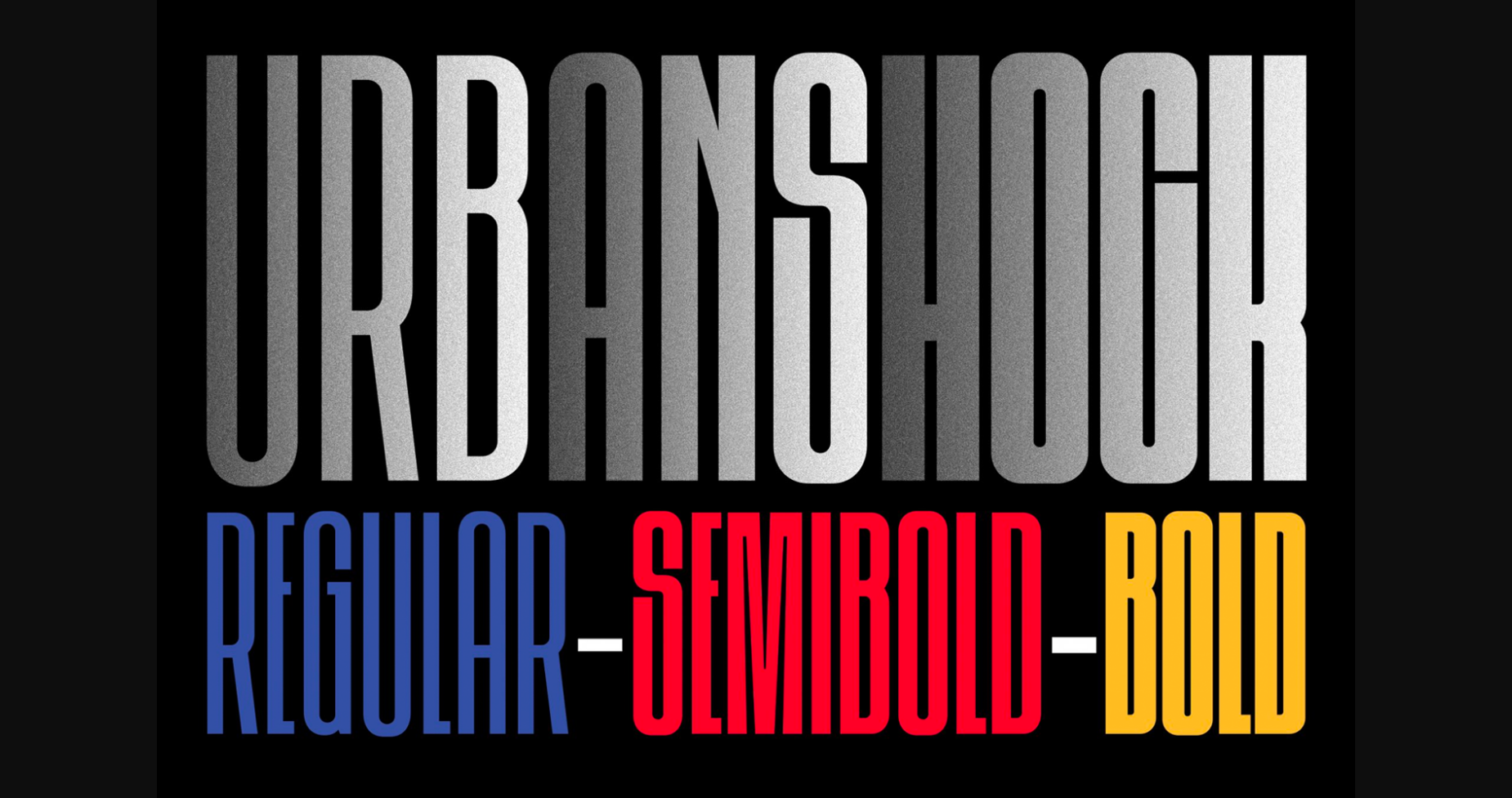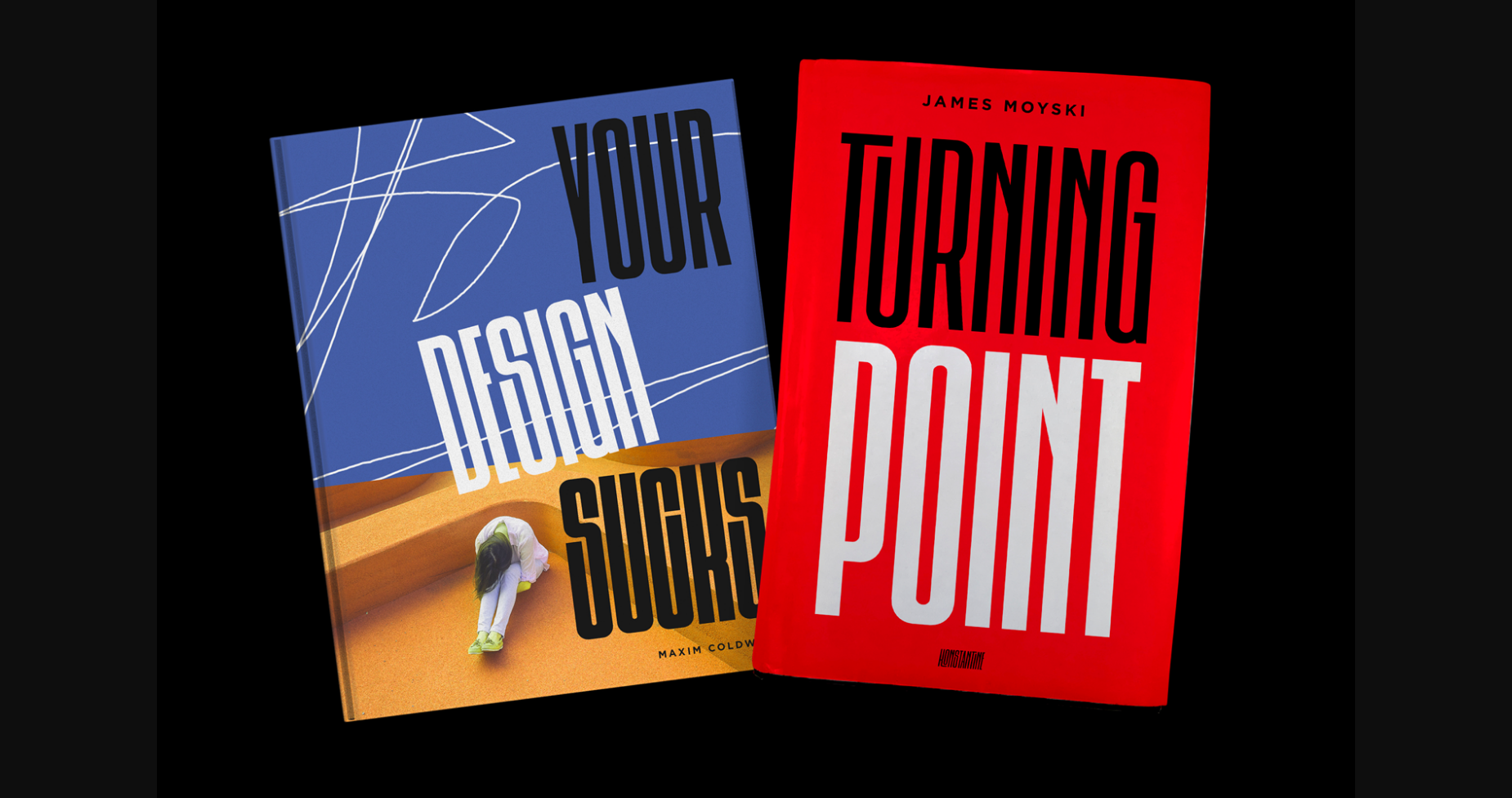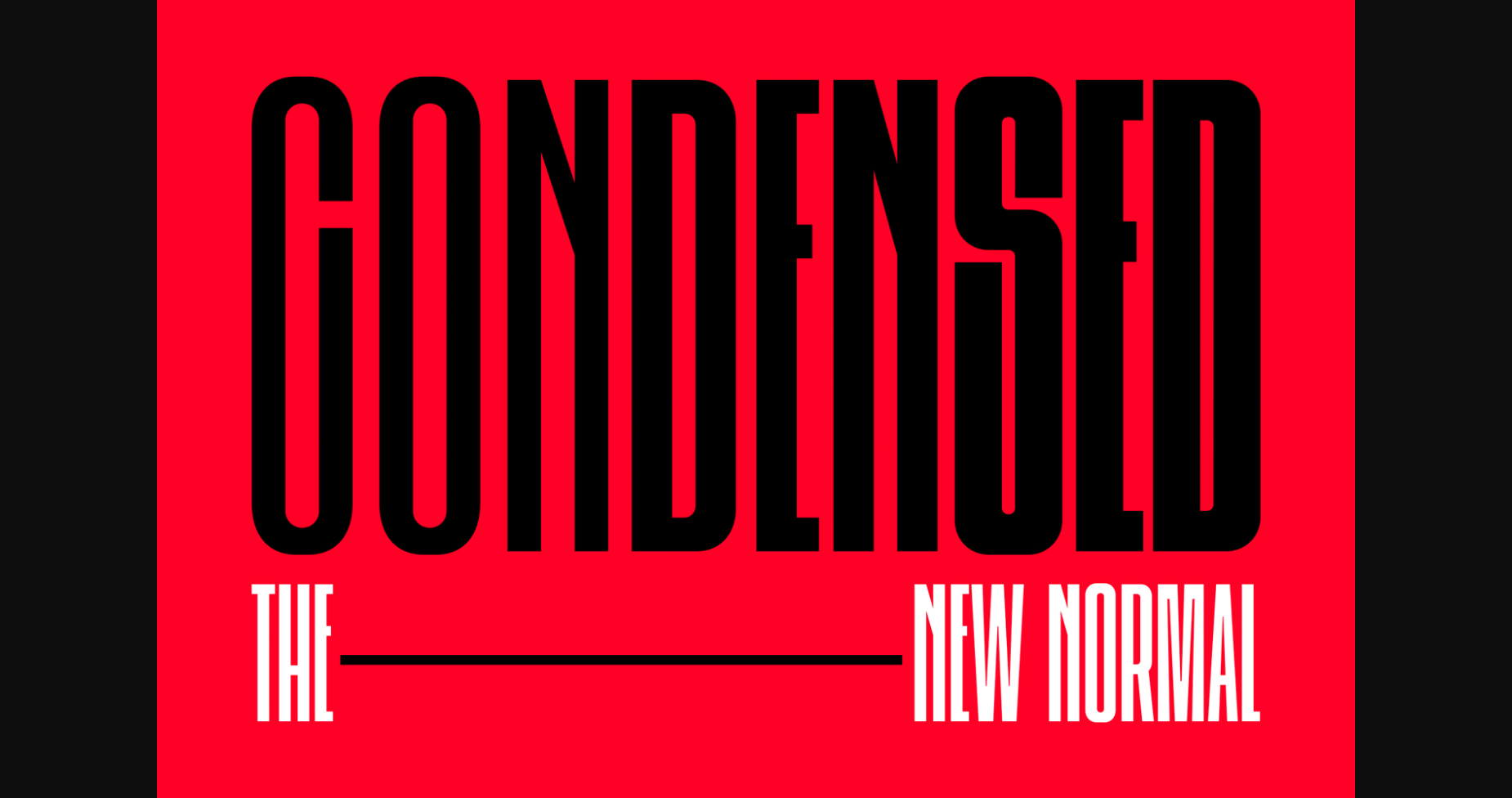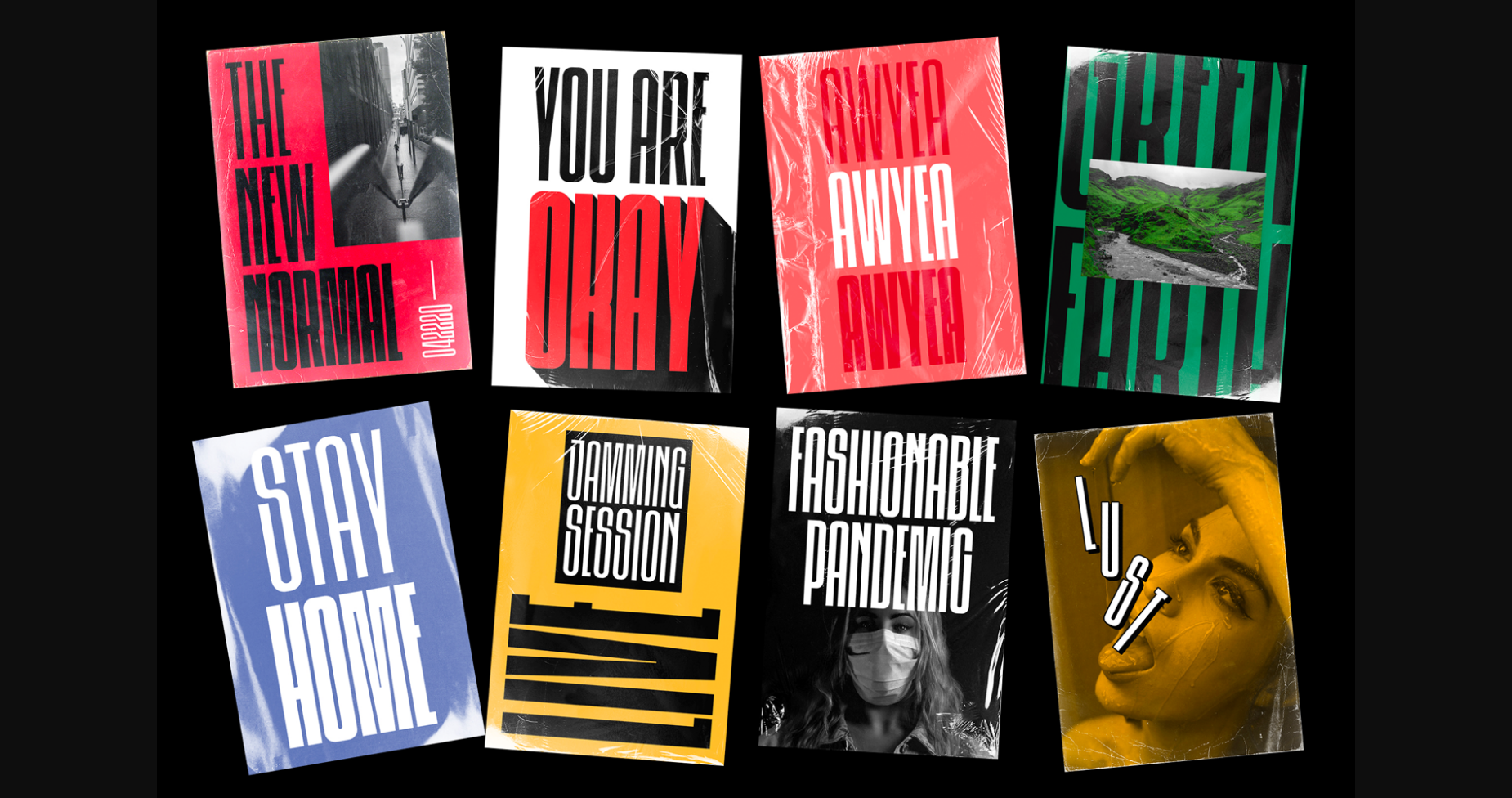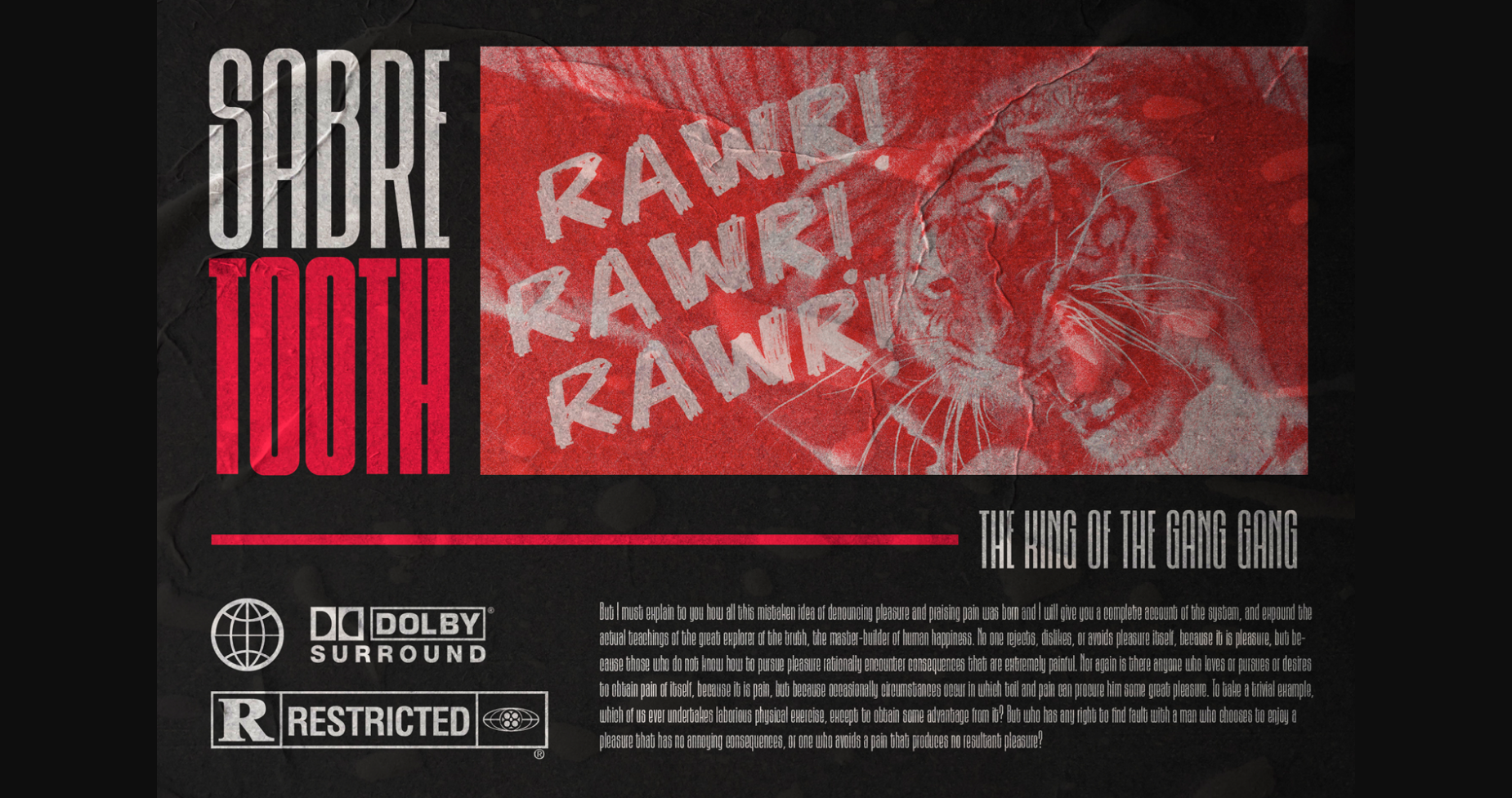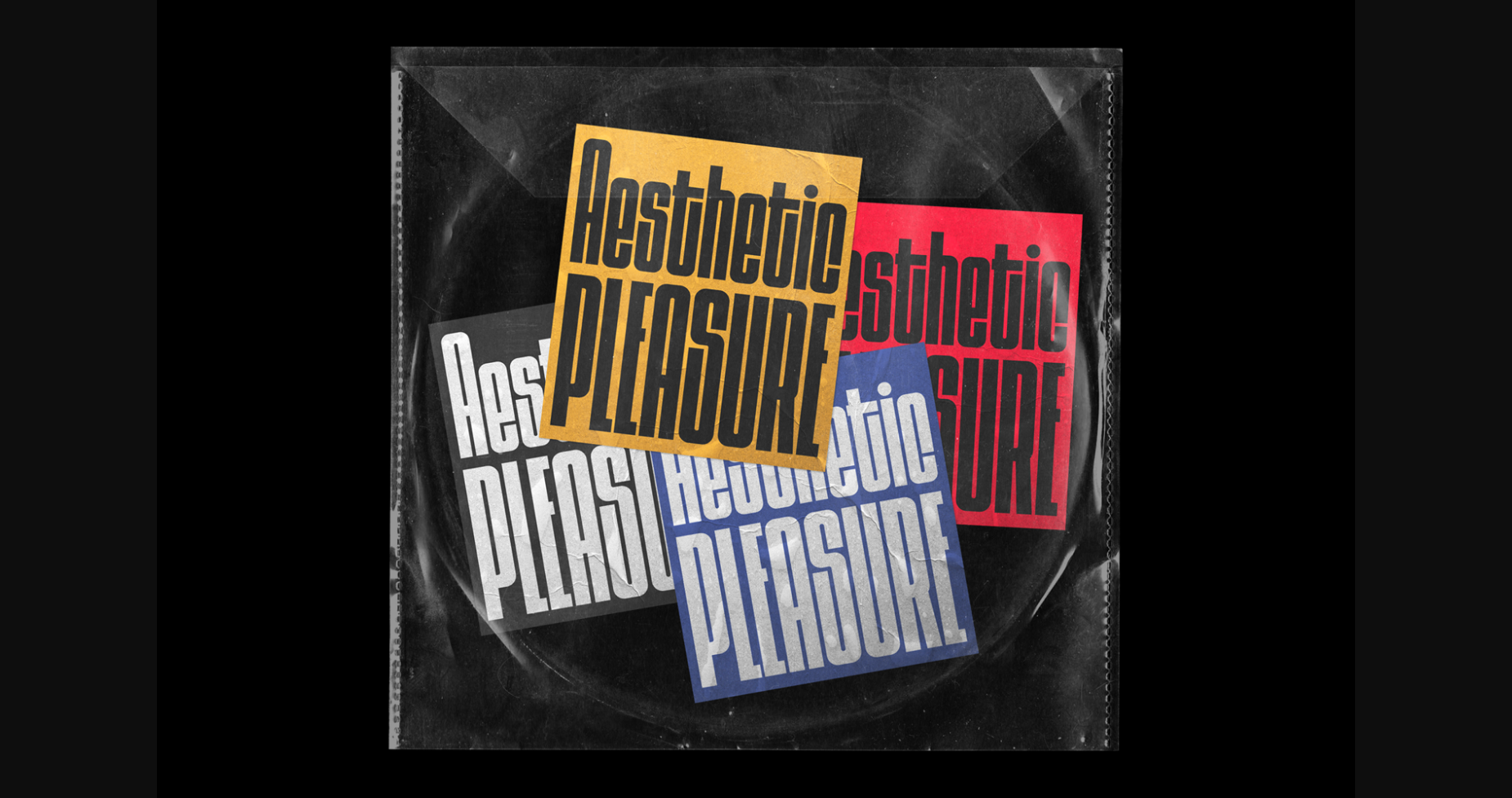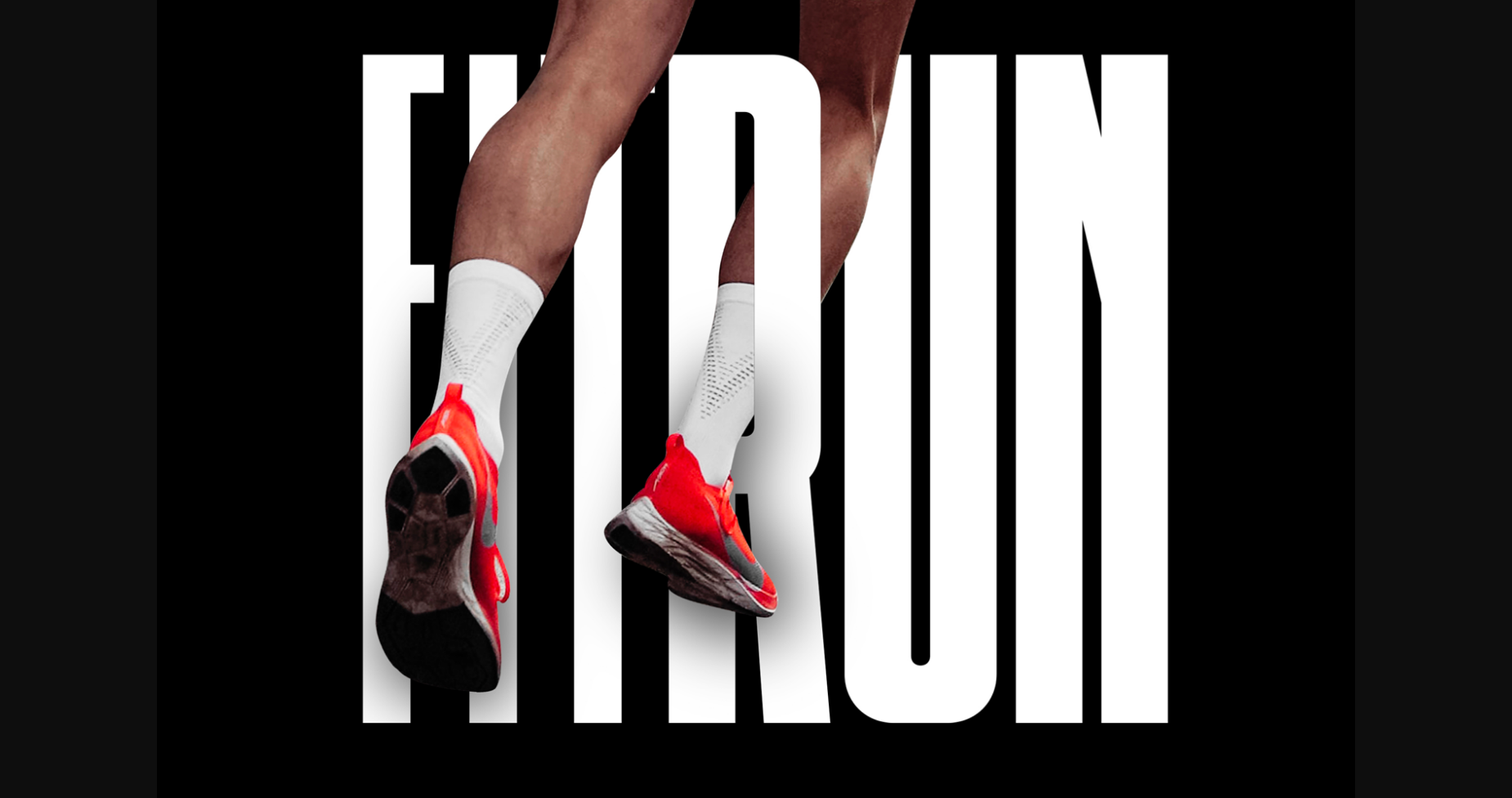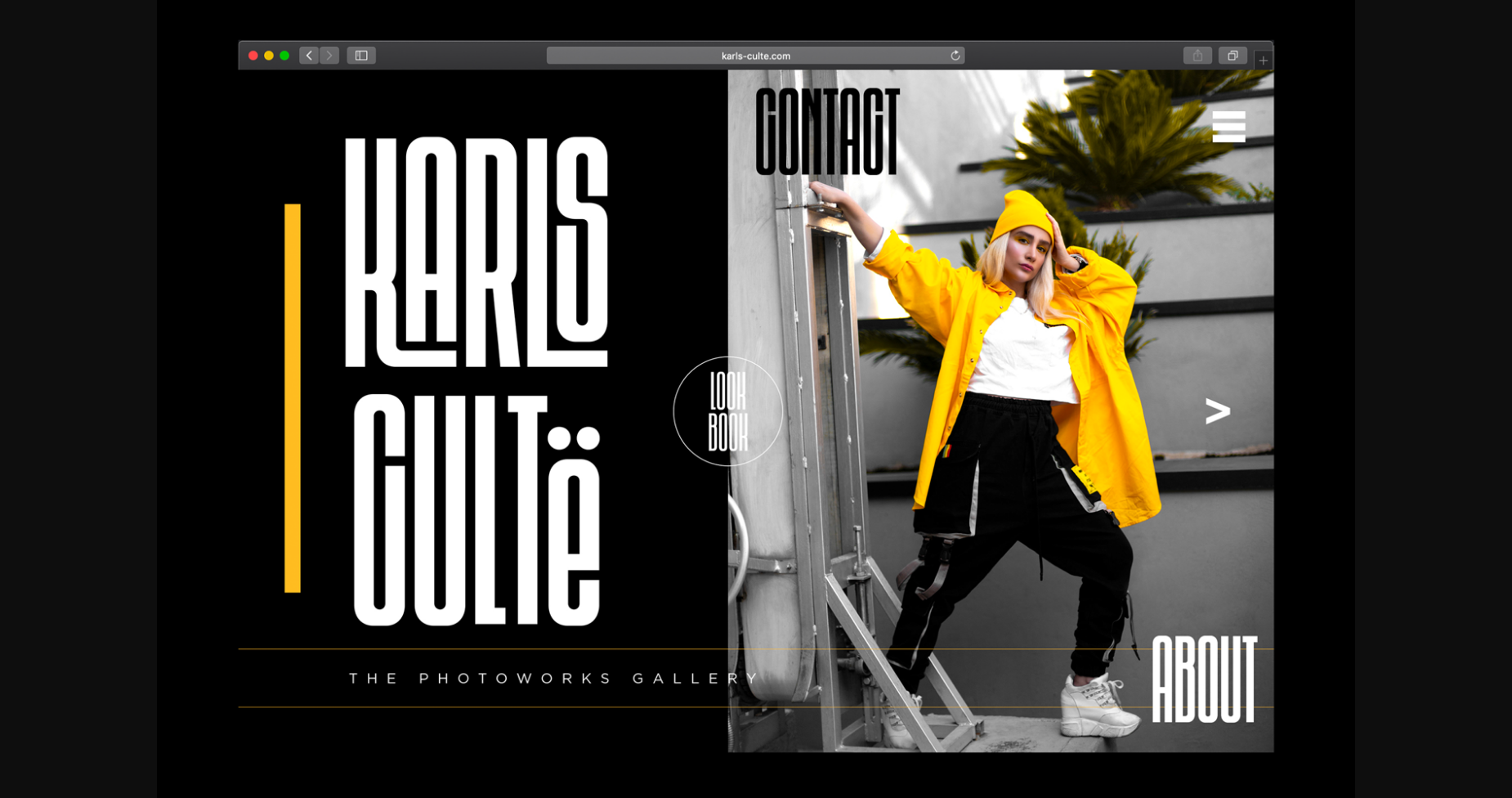
About Urbanshock Font
Urbanshock is a tall, thin and cool sans serif font. It will elevate a wide range of crafting ideas, from cards, to branding, labels and much more.